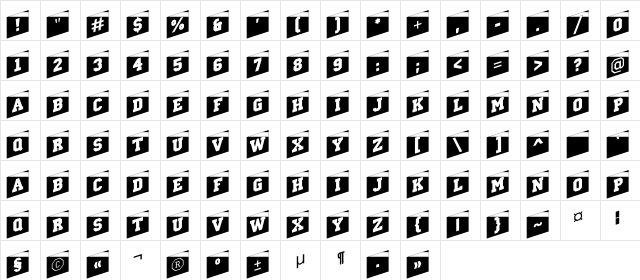
a_CampusCmCorner Regular
Design Context for a_CampusCmCorner Typeface
a_CampusCmCorner is a composed and adaptable typeface that performs quietly and consistently across a wide range of design contexts.